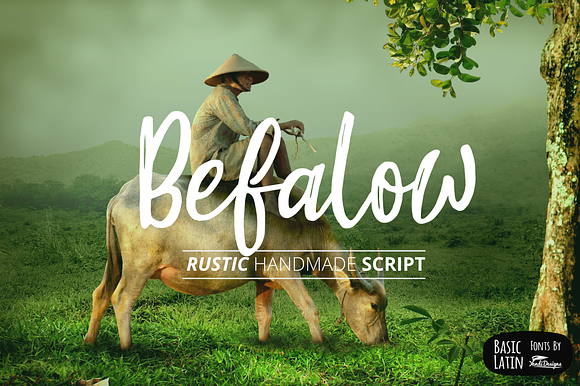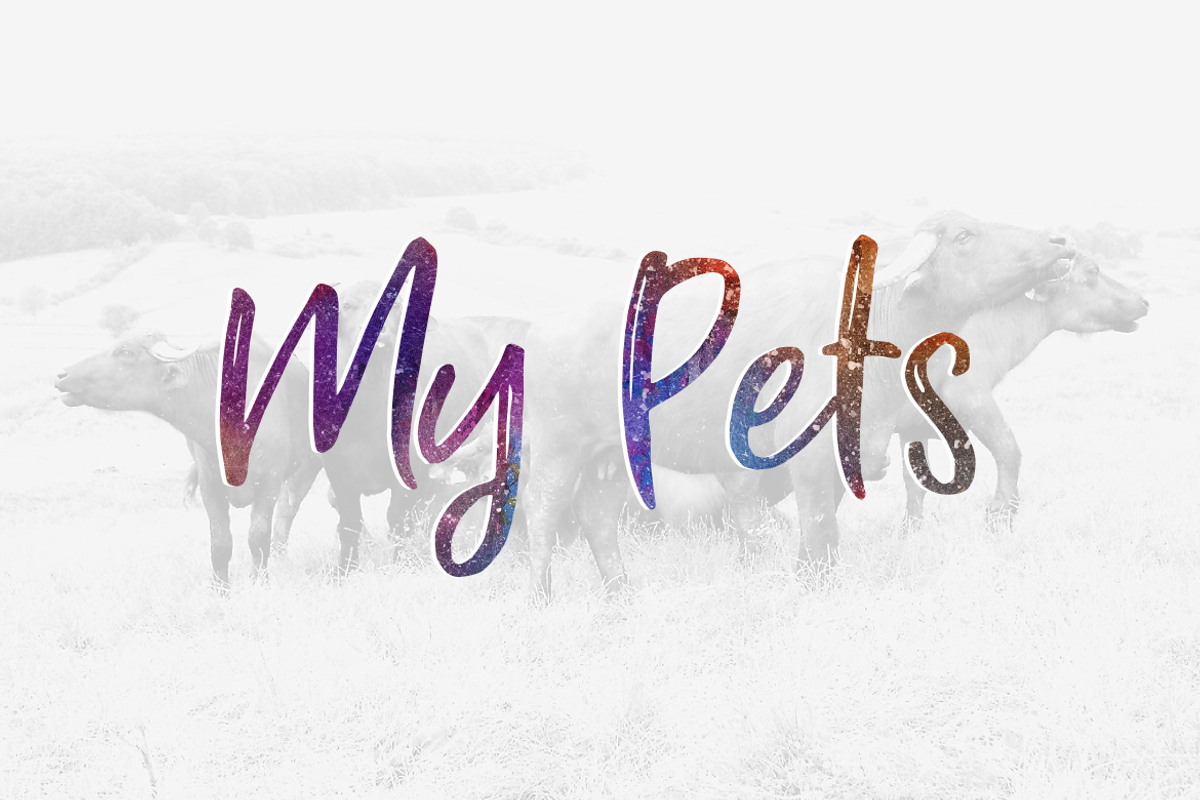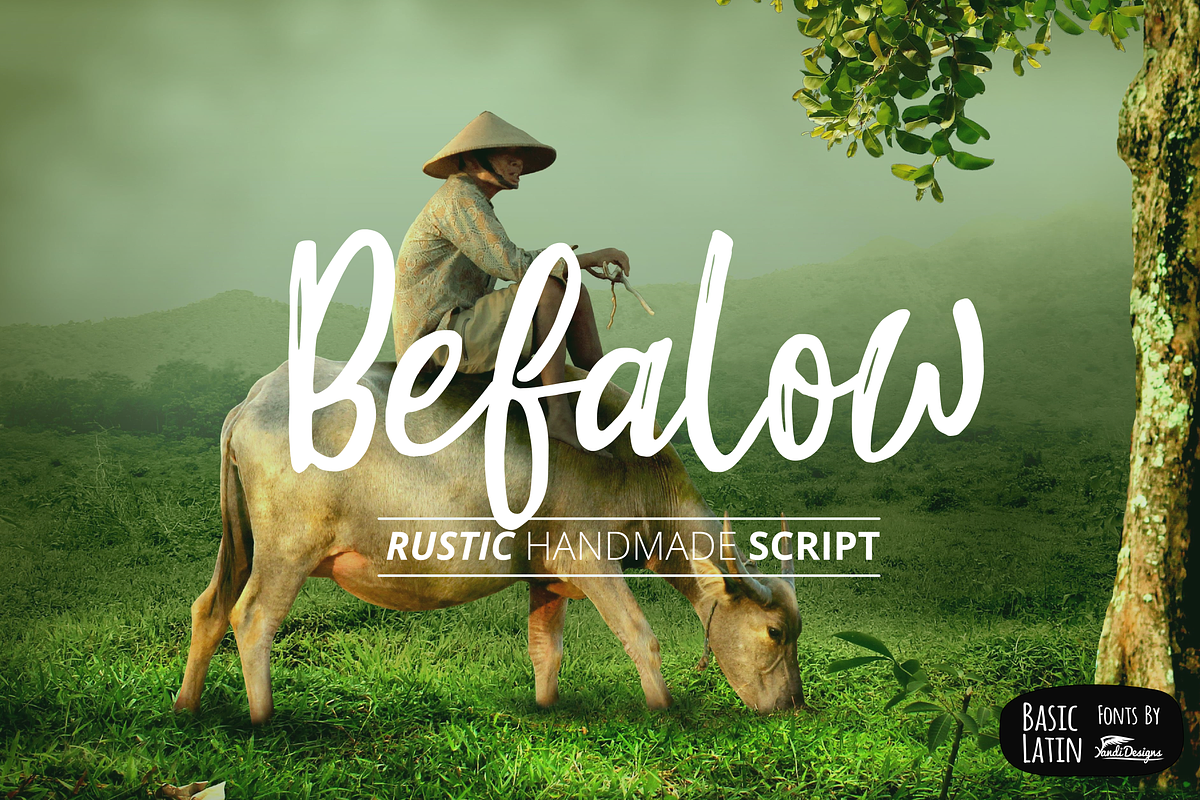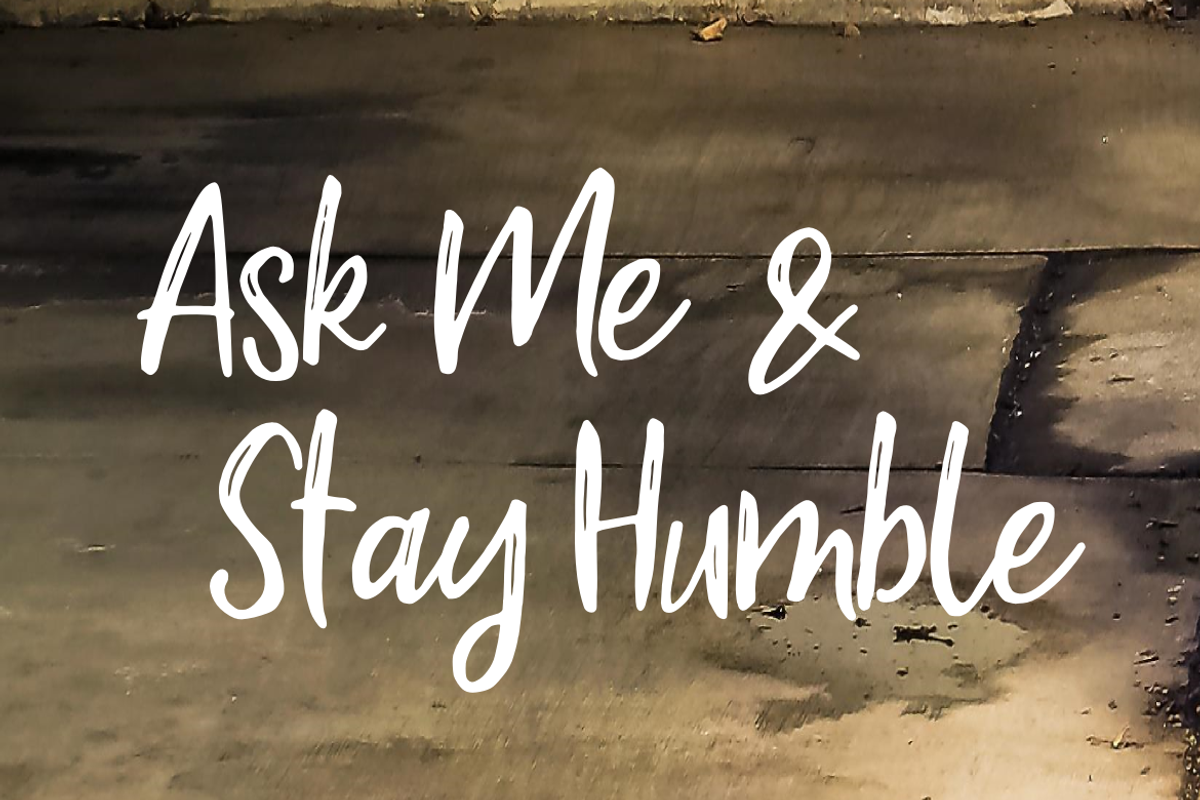
Befalow Rustic Font
Simple brush font , suitable for many project , quotes, logo , heading , title etc.
Befalow Rustic Font by YandiDesigns fits naturally into Branding, posters, packaging, typography.